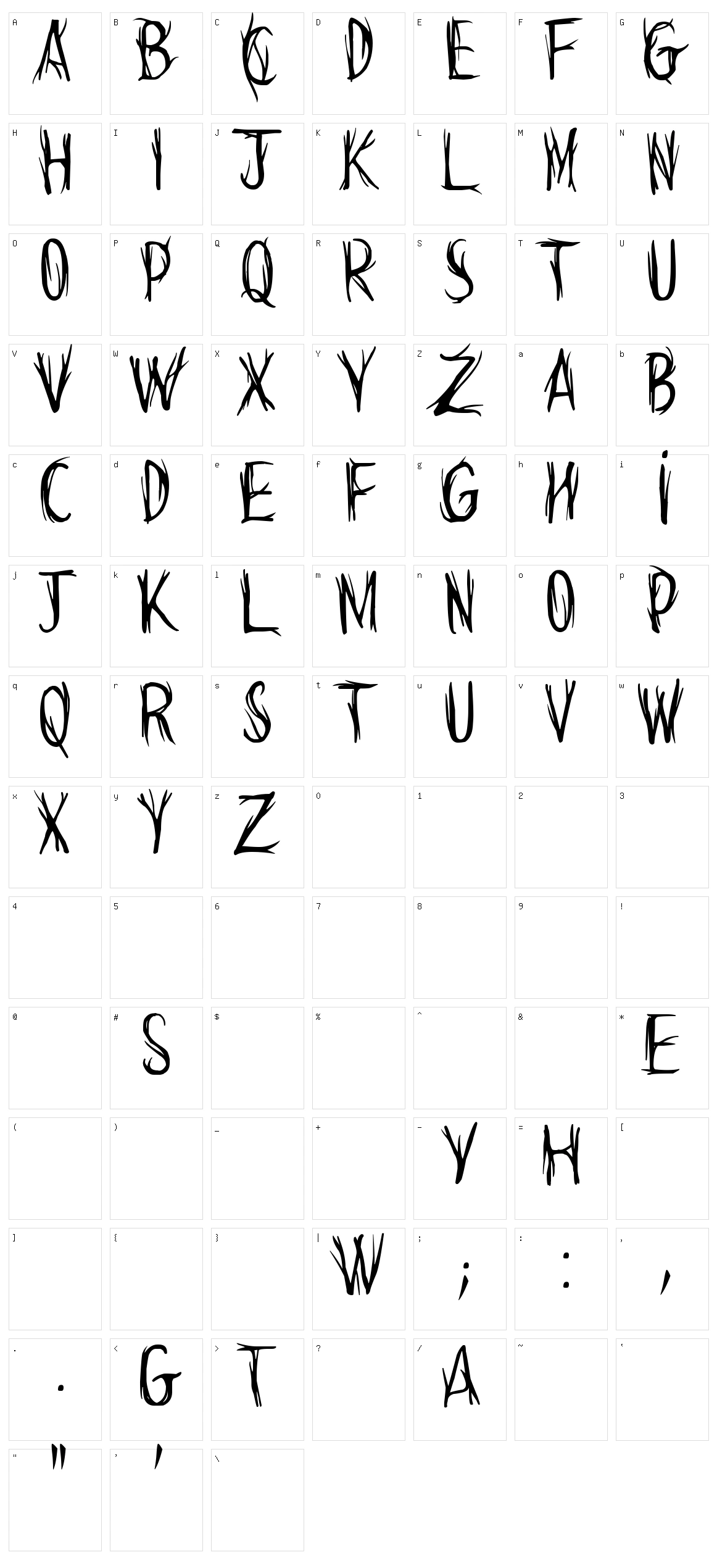
The free font Can't judge a book by its cover is carefully designed by Poemhaiku, showcasing a thoughtful balance of creativity and usability and falls under the Horror font style. When you download the ZIP file, it contains only 1094.02 KB of font files, making it lightweight and quick to download. Please review the license details below to understand permitted usage and distribution rights. If license information is not available, we recommend using this font for personal projects only or contacting the author directly for commercial usage permissions.